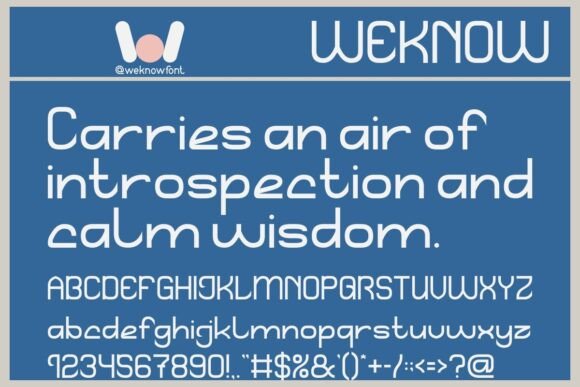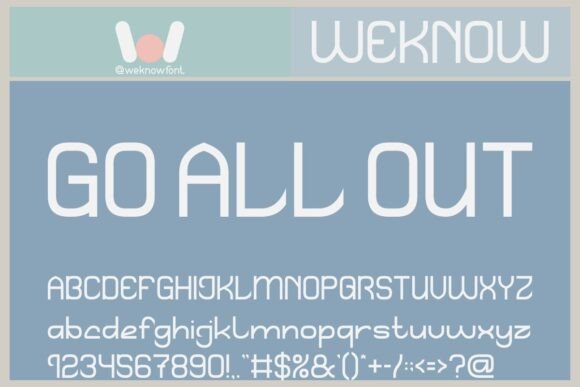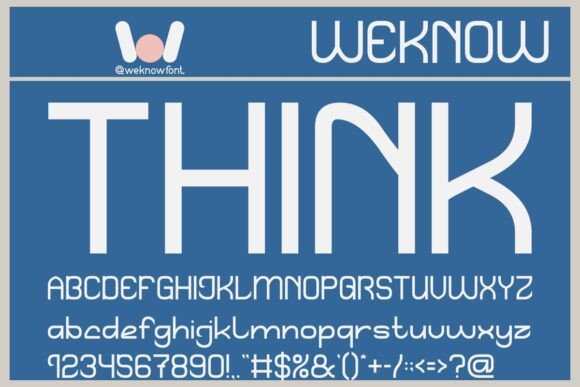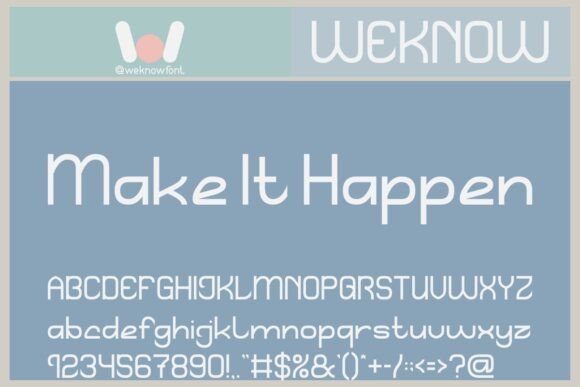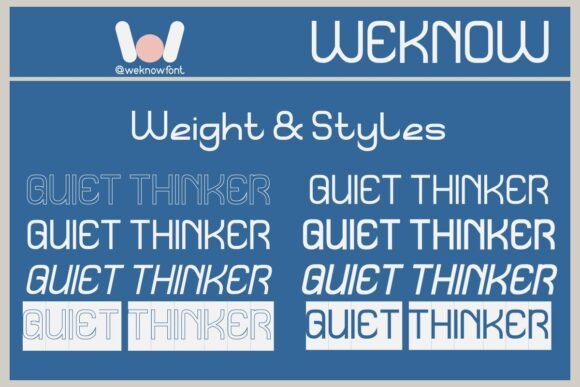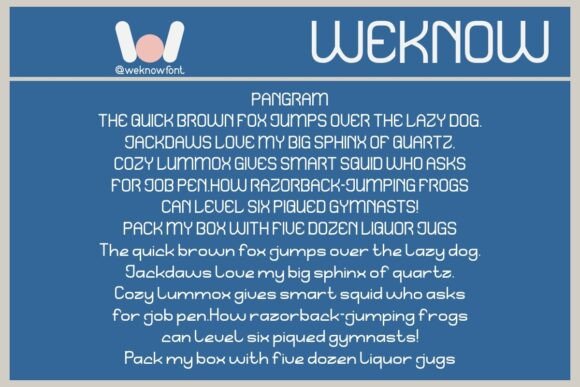
Introduction to Quiet Thinker Font
As a designer, you know that the perfect font can make all the difference in bringing your creative vision to life. You’ve spent hours poring over design resources, searching for that one font that captures the essence of your project. And then, it hits you – a font that’s both playful and calming, with a unique blend of clear and sophisticated aesthetics. Welcome to the world of Quiet Thinker Font, a high-quality sans-serif font that’s about to become your go-to design resource.
Key Features of Quiet Thinker Font
- High-quality design resource suitable for creative projects, with a clean and modern aesthetic.
- Transparent background option allows for seamless integration with any design element.
- Unique characteristics include a subtle texture and a sense of depth, adding visual interest to any design.
- Perfect for use in digital design projects, including logos, typography, and other creative applications.
Honest Review: Quiet Thinker Font
As a designer, I’ve had the chance to work with a wide range of fonts, and I’m always on the lookout for high-quality resources that can elevate my creative projects. The Quiet Thinker Font is one such resource that I’d like to share my honest thoughts on.
What works well: ✨ The Quiet Thinker Font is incredibly versatile, with a clean and minimalist design that makes it perfect for a variety of projects, from blog posts to business reports. The font is also highly legible, even at smaller sizes, which is a must for any design resource.
- ✨ High quality: The font is crisp and clear, with a transparent background that makes it easy to work with.
Any limitations: ⚠️ While the Quiet Thinker Font is a great resource, I did find that it can be a bit too minimalist for some projects. If you’re looking for a font with a bit more flair, you may want to consider other options.
Overall impression: I’m really impressed with the Quiet Thinker Font, and I think it’s a great addition to any designer’s toolkit. While it may not be perfect for every project, it’s definitely worth checking out if you’re looking for a high-quality, free font resource.
Tips for Getting the Most Out of Quiet Thinker Font
For the best results, use the Quiet Thinker Font in conjunction with a high-contrast background. Experiment with different font sizes and styles to achieve the desired effect.
Common Use Cases for Quiet Thinker Font
The Quiet Thinker Font is ideal for creative projects that require a clean and minimalist aesthetic. Use it for logos, business cards, and other design elements where a subtle, sophisticated look is desired.